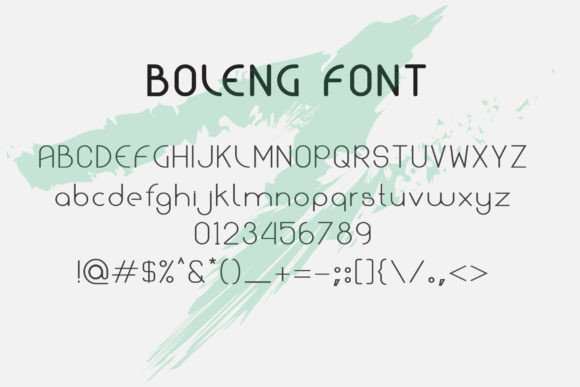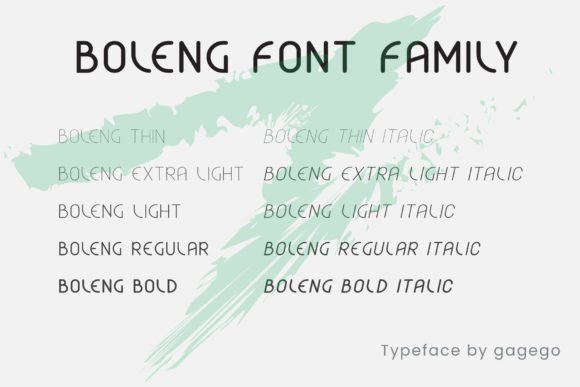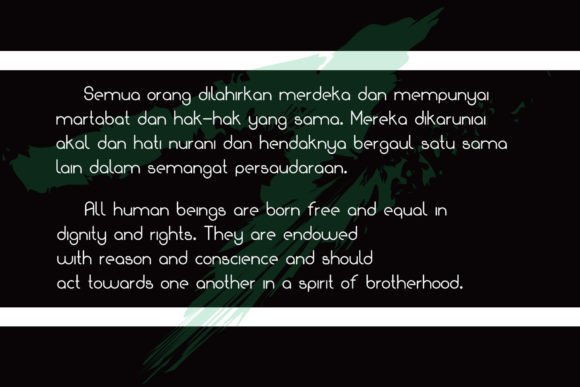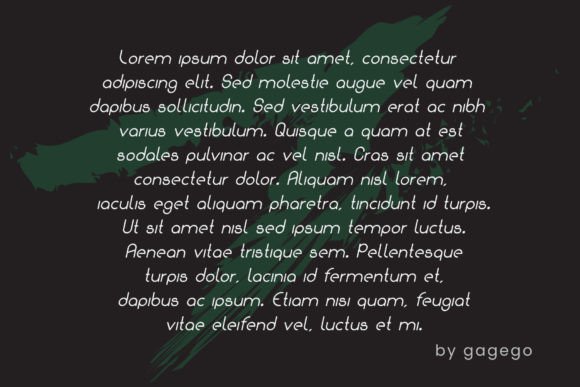
Introducing Boleng Font: The Ultimate Choice for Clean and Timeless Designs
In the world of design, typography plays a crucial role in conveying the message and aesthetic of a project. With numerous fonts available, finding the perfect one that embodies simplicity, elegance, and timelessness can be a daunting task. However, if you’re looking for a font that ticks all these boxes, look no further than Boleng Font. In this article, we’ll explore the features, benefits, and uses of Boleng Font, and why it’s becoming a favorite among designers and crafters.
What is Boleng Font?
Boleng Font is a simple and exquisite sans-serif font that has been designed to provide a clean and timeless aesthetic to any design project. Its minimalistic design, clear lines, and elegant shapes make it an ideal choice for designers who want to create a modern and sophisticated look in their designs. Whether you’re working on a branding project, editorial design, or any other project that requires a simple and refined touch, Boleng Font is the perfect choice.
Key Features of Boleng Font
So, what makes Boleng Font stand out from the rest? Here are some of its key features:
- Minimalistic Design: Boleng Font boasts a clean and minimalistic design that ensures your designs look modern and sophisticated.
- Clear Lines and Elegant Shapes: The font’s clear lines and elegant shapes provide a refined and polished look that’s perfect for designs that require a touch of elegance.
- Simple and Refined: Boleng Font is designed to be simple and refined, making it perfect for designs that require a subtle touch.
- Timeless Aesthetic: The font’s timeless aesthetic ensures that your designs will remain relevant for years to come.
Benefits of Using Boleng Font
Using Boleng Font in your design projects comes with numerous benefits. Here are some of the advantages of using this exquisite font:
- Versatility: Boleng Font is versatile and can be used in a wide range of design projects, from branding and editorial design to packaging and digital design.
- Ease of Readability: The font’s clear lines and simple design make it easy to read, even at small sizes.
- Professional Look: Boleng Font gives your designs a professional look that’s perfect for businesses and individuals who want to make a lasting impression.
- Unique and Distinctive: The font’s unique and distinctive design ensures that your designs stand out from the crowd.
Who Can Benefit from Boleng Font?
Boleng Font is perfect for a wide range of designers and crafters, including:
- Graphic Designers: Graphic designers can use Boleng Font in branding, editorial design, and other projects that require a clean and timeless aesthetic.
- Digital Designers: Digital designers can use the font in digital projects, such as websites, apps, and social media graphics.
- Crafters: Crafters can use Boleng Font in their handmade projects, such as card making, scrapbooking, and DIY crafts.
- Small Business Owners: Small business owners can use Boleng Font in their branding and marketing materials to create a professional and cohesive look.
- Pair with Other Fonts: Pair Boleng Font with other fonts to create a unique and distinctive look.
| Font Name | Boleng Font |
| Author | gagego |
In conclusion, Boleng Font is a simple and exquisite sans-serif font that’s perfect for designers and crafters who want to create a clean and timeless aesthetic in their designs. With its minimalistic design, clear lines, and elegant shapes, this font is ideal for a wide range of design projects, from branding and editorial design to packaging and digital design. Whether you’re a graphic designer, digital designer, crafter, or small business owner, Boleng Font is a great choice for any project that requires a simple and refined touch.